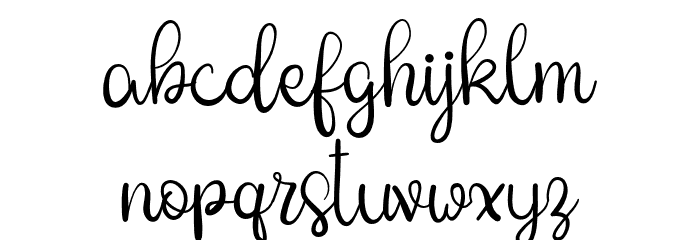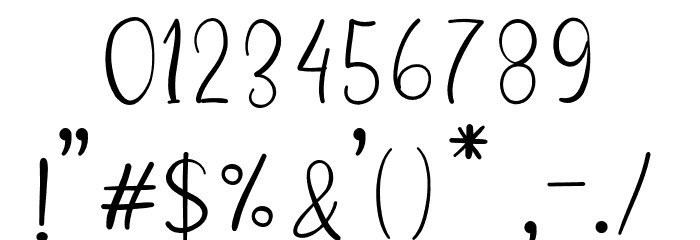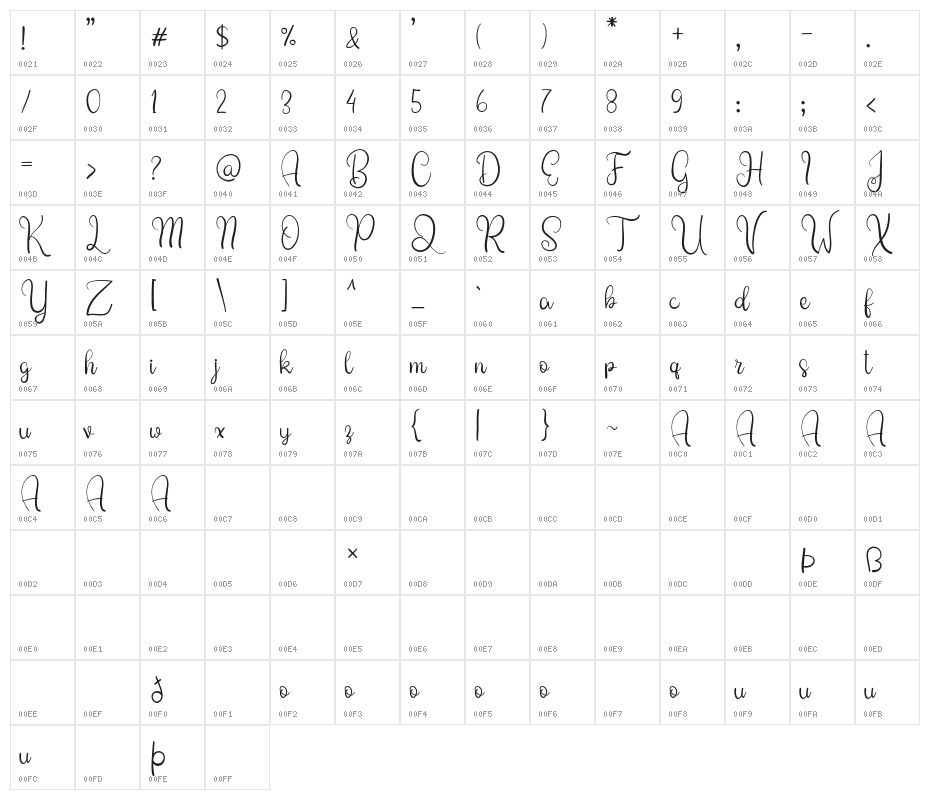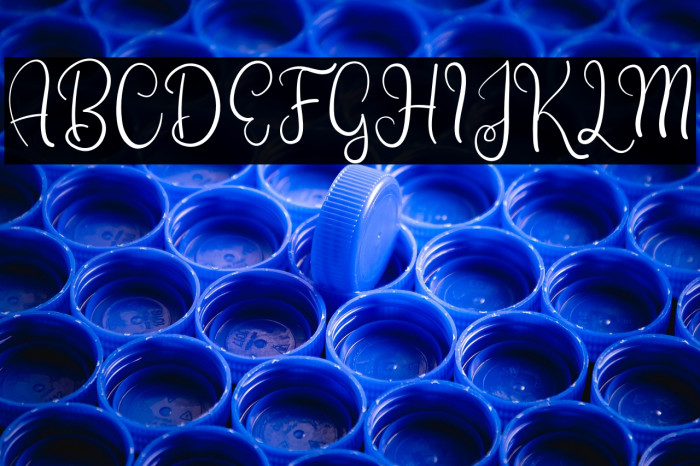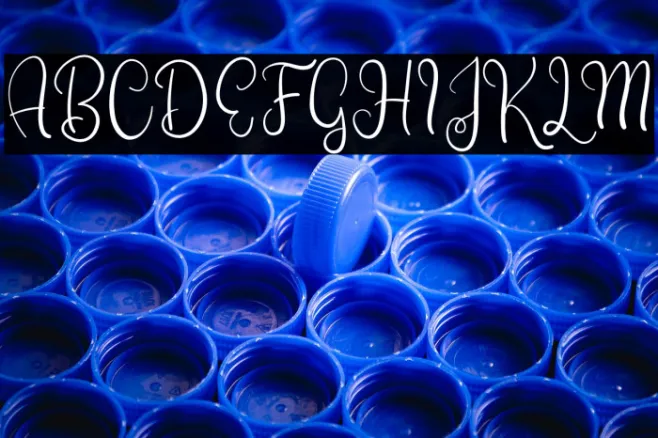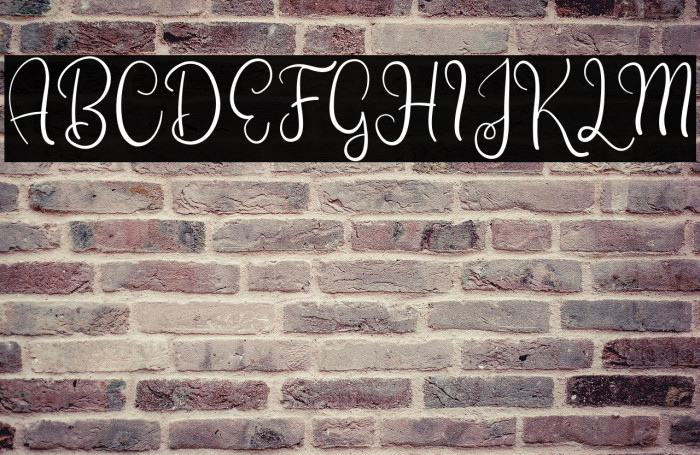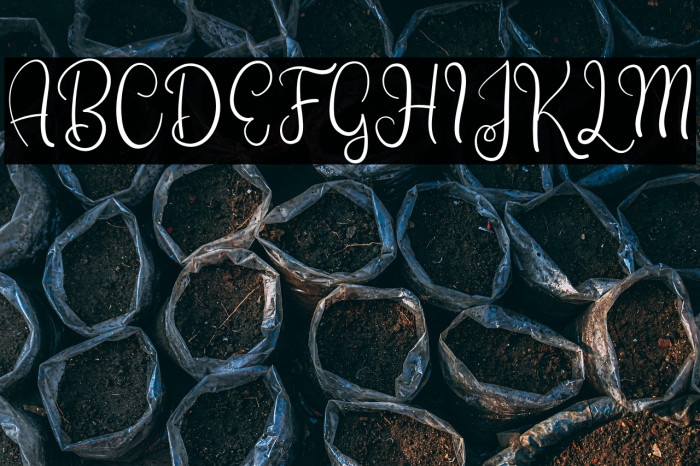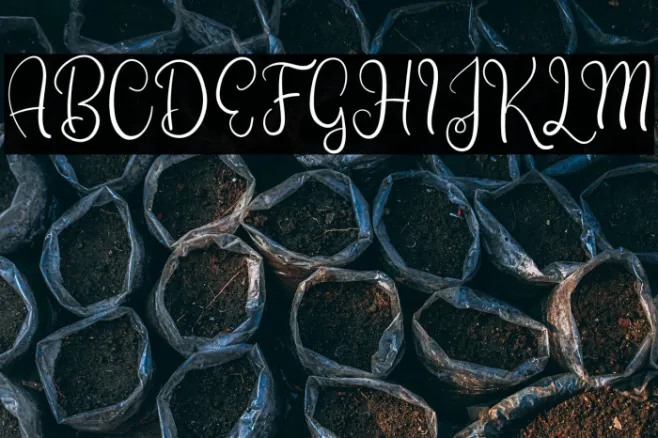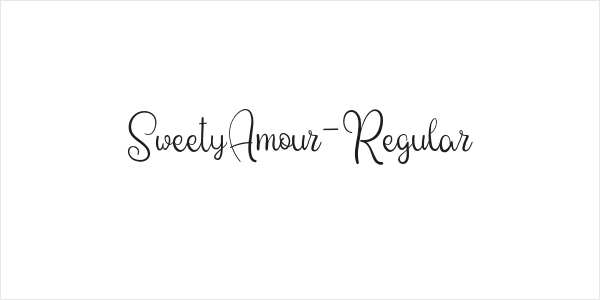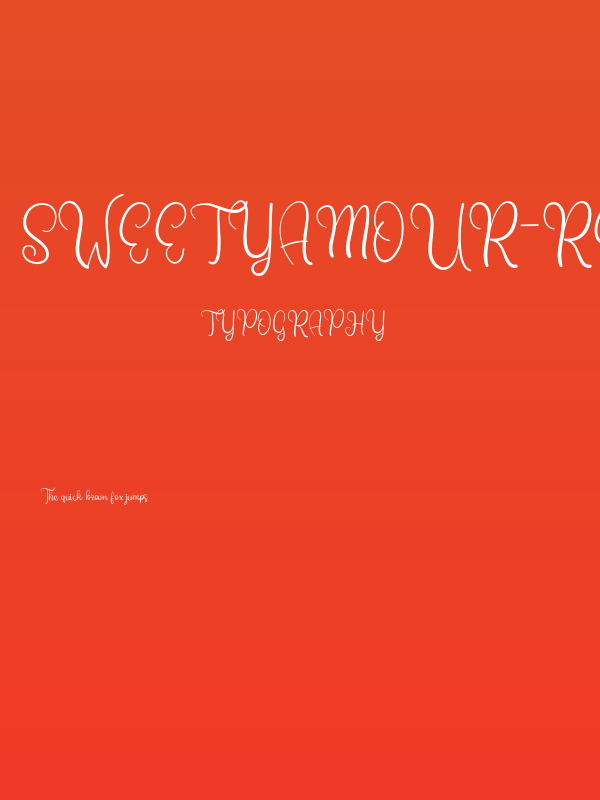
SweetyAmour-Regular Font
This font features a charming and playful script style with a handwritten feel. The uppercase letters are elegantly curved with a flowing, cursive design, while the lowercase letters maintain a consistent, smooth stroke that enhances readability. The numerals are well-balanced, complementing the overall aesthetic. Special characters are creatively designed, adding a whimsical touch. The font's strokes are moderately thick, providing a medium contrast that ensures clarity without sacrificing its decorative appeal. This font is perfect for projects that require a personal and inviting touch.
A playful and elegant handwritten script font with medium contrast.
- Font: SweetyAmour-Regular
- Category: Script